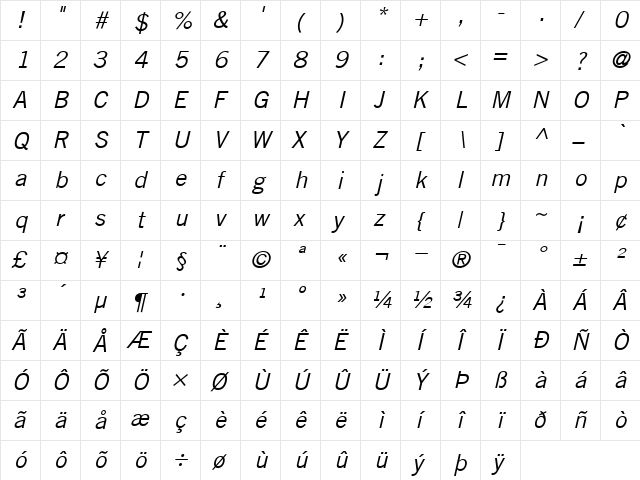
TradeGothic RomanItalic Font Preview
TradeGothic RomanItalic
Design Context for TradeGothic Typeface
TradeGothic takes a clean, functional approach — its unadorned letterforms prioritise legibility and work reliably across screen and print environments. Its italic angle brings a sense of urgency and motion to the letterforms.
Font Pairing: Works well alongside a characterful serif or display font that can carry the expressive load while TradeGothic handles the functional copy.
Pro Tip: Use TradeGothic for UI labels, navigation, and short-form body copy where clean legibility is the priority.